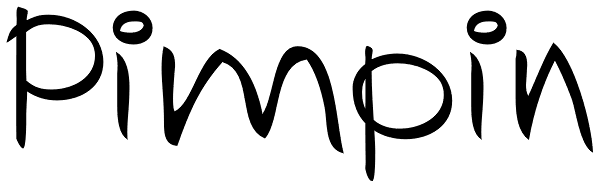
Pimpin
Pimpin, is a speedy cursive typeface that can express a fresh atmosphere of casual style. The Pimpin fonts come in four styles: Regular, Bold, Italic and Bold Italic; Included diacritics for CE languages. They were carefully hand-drawn, with...